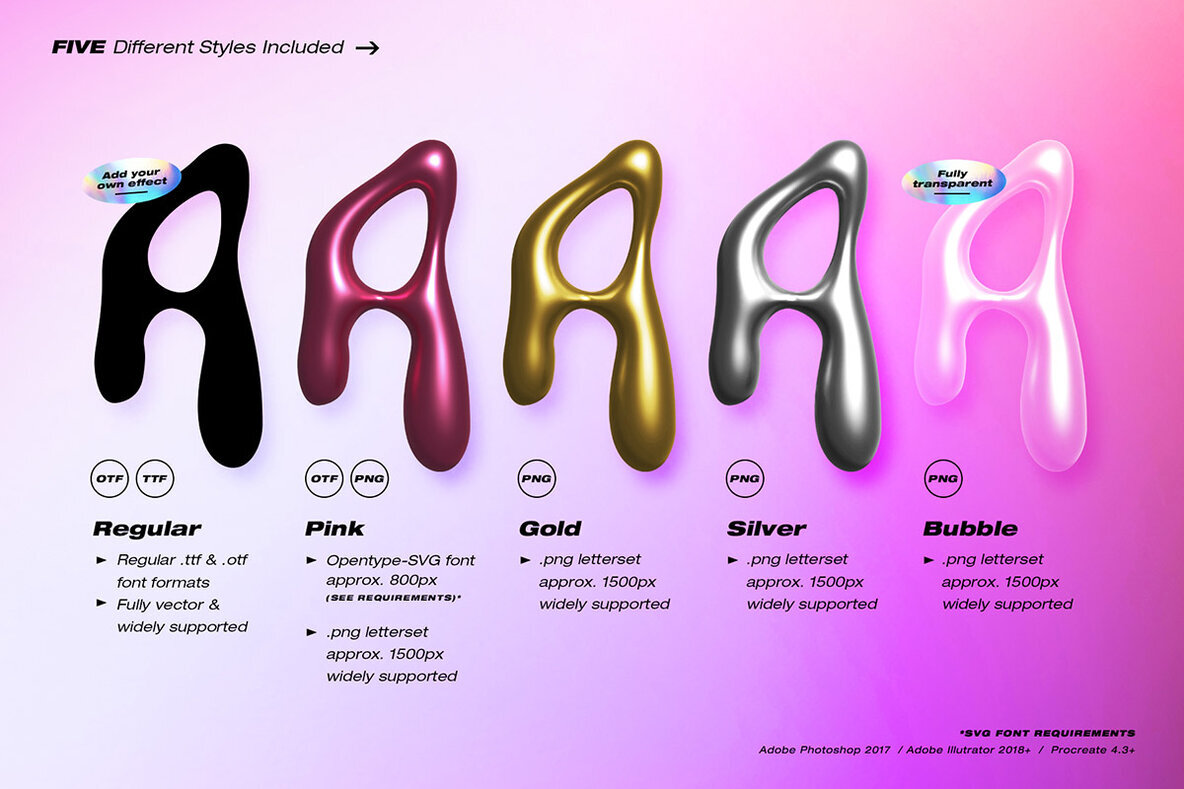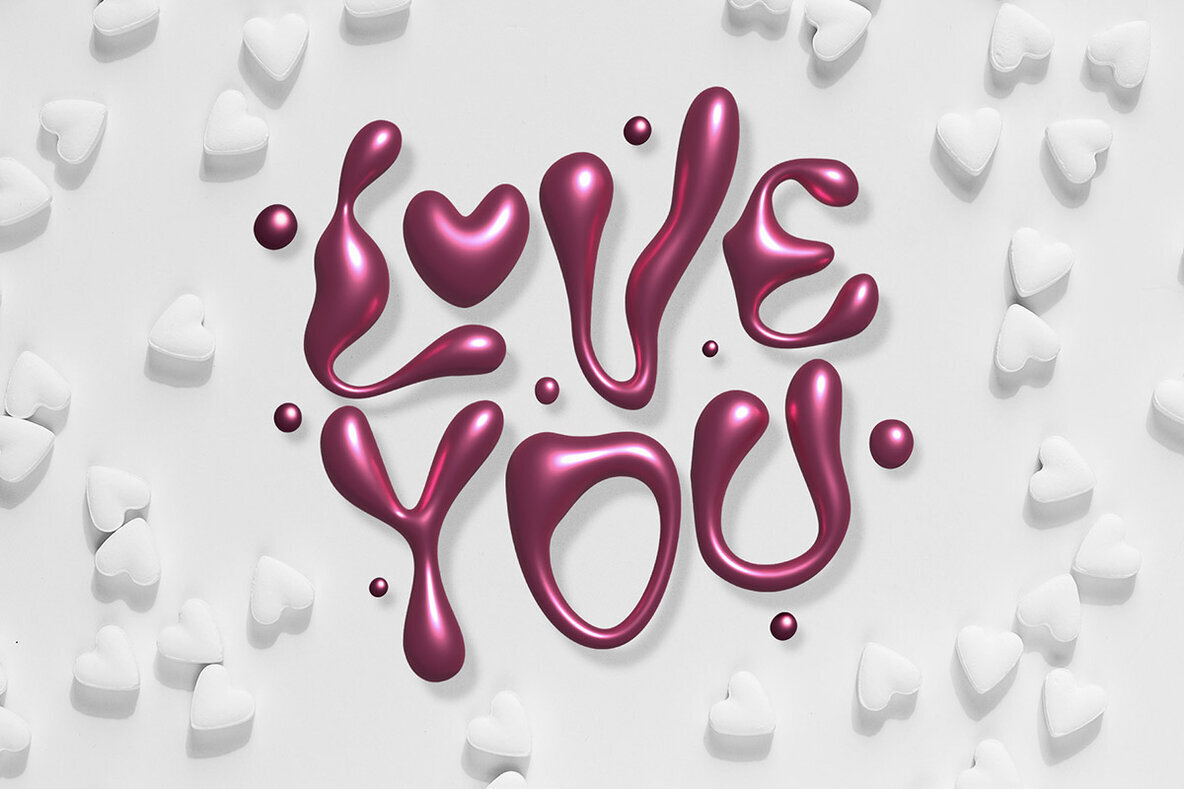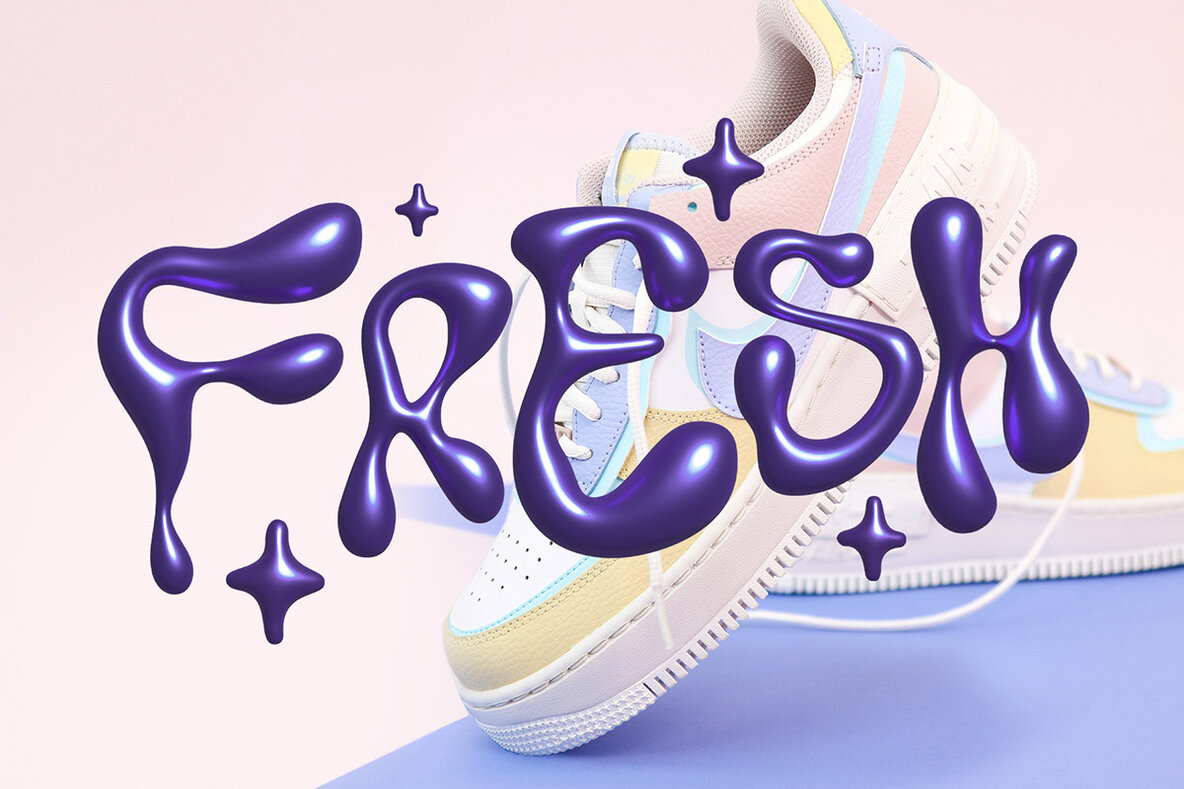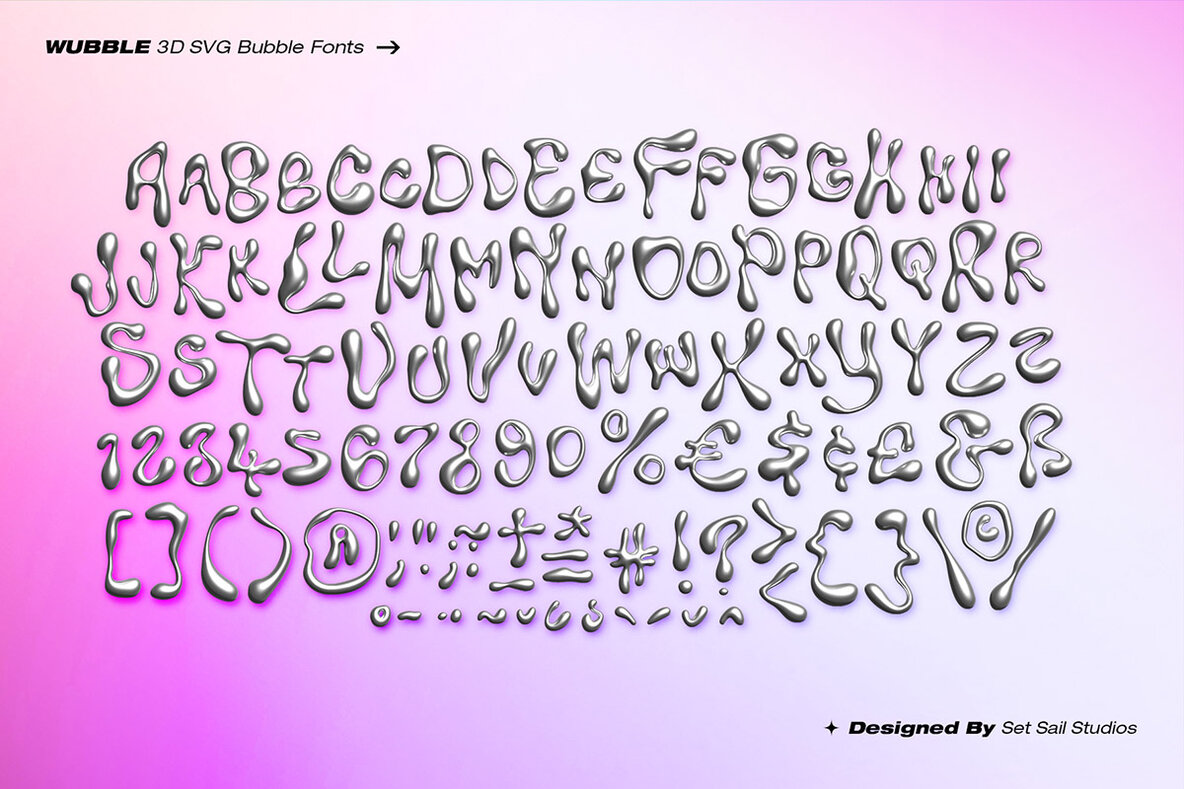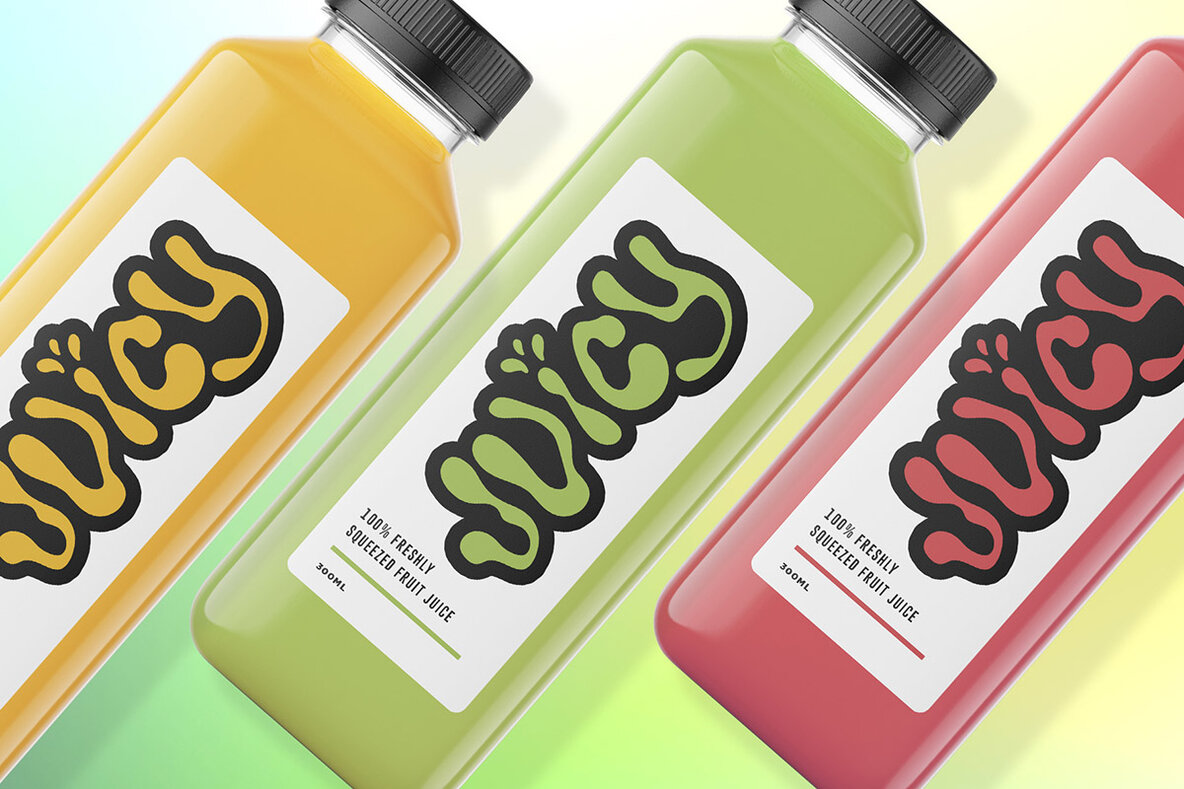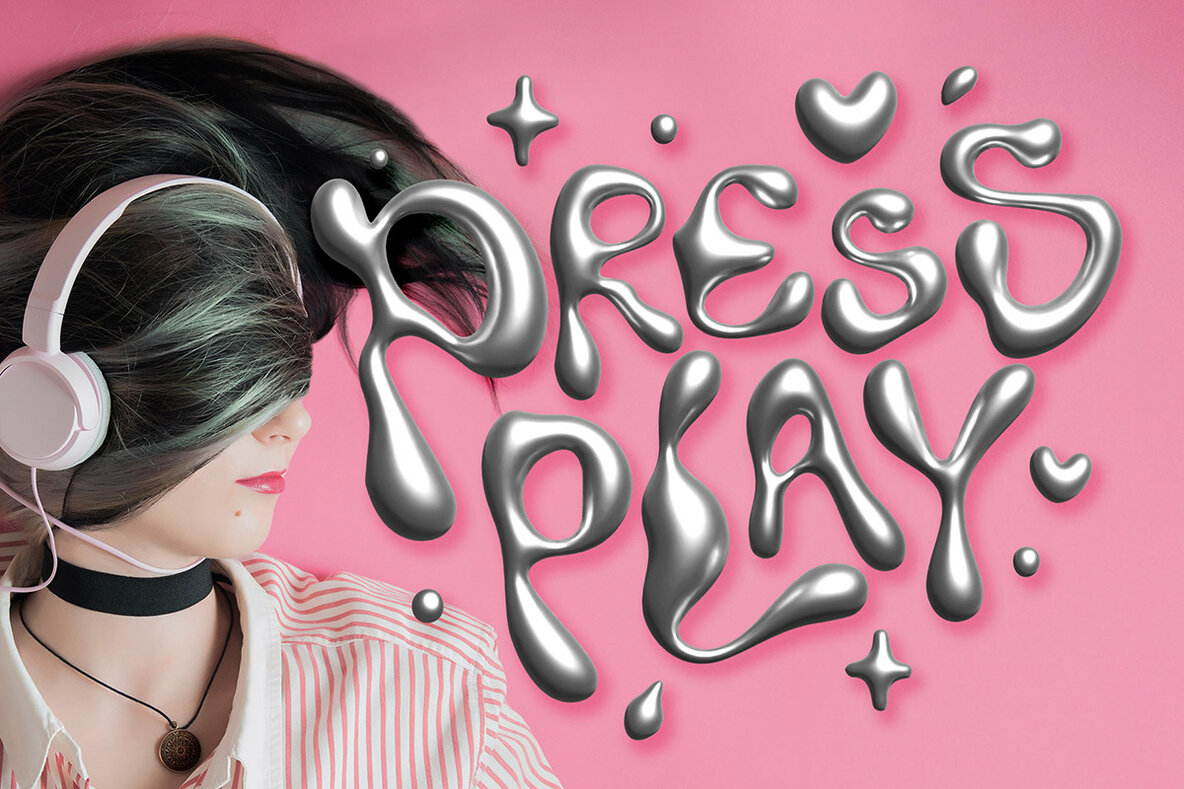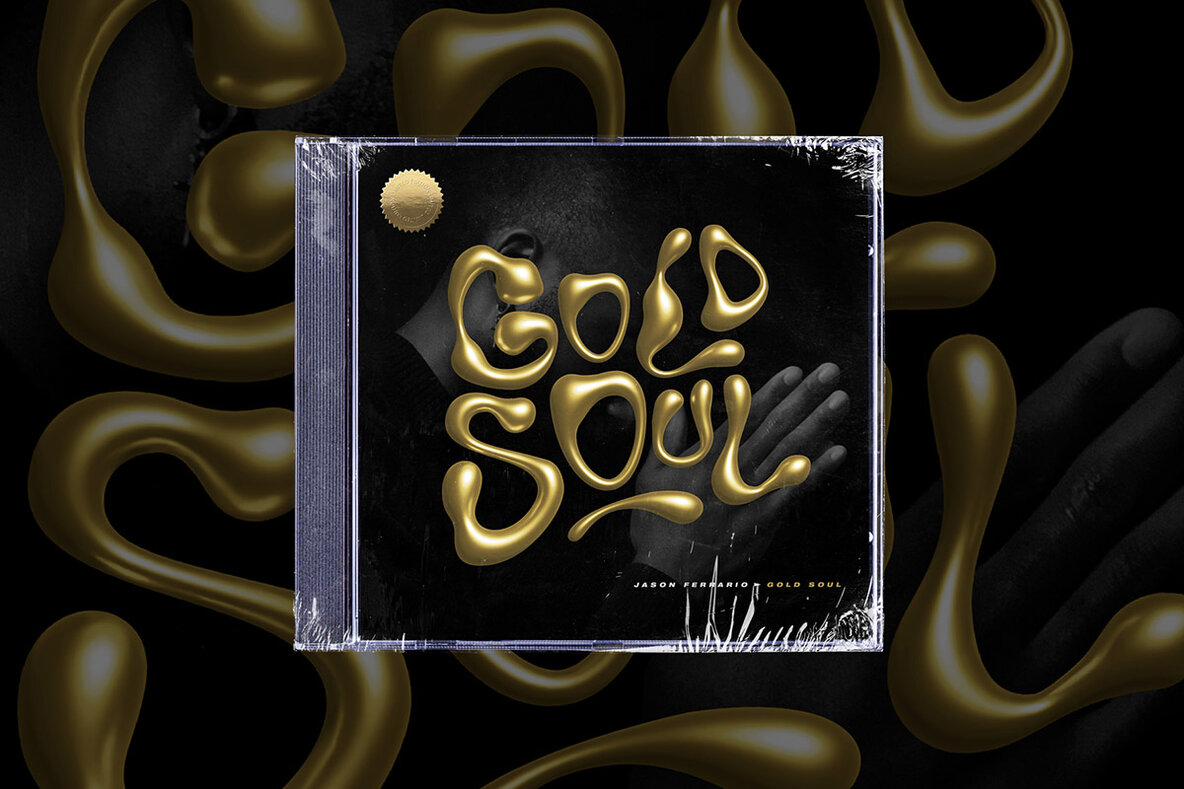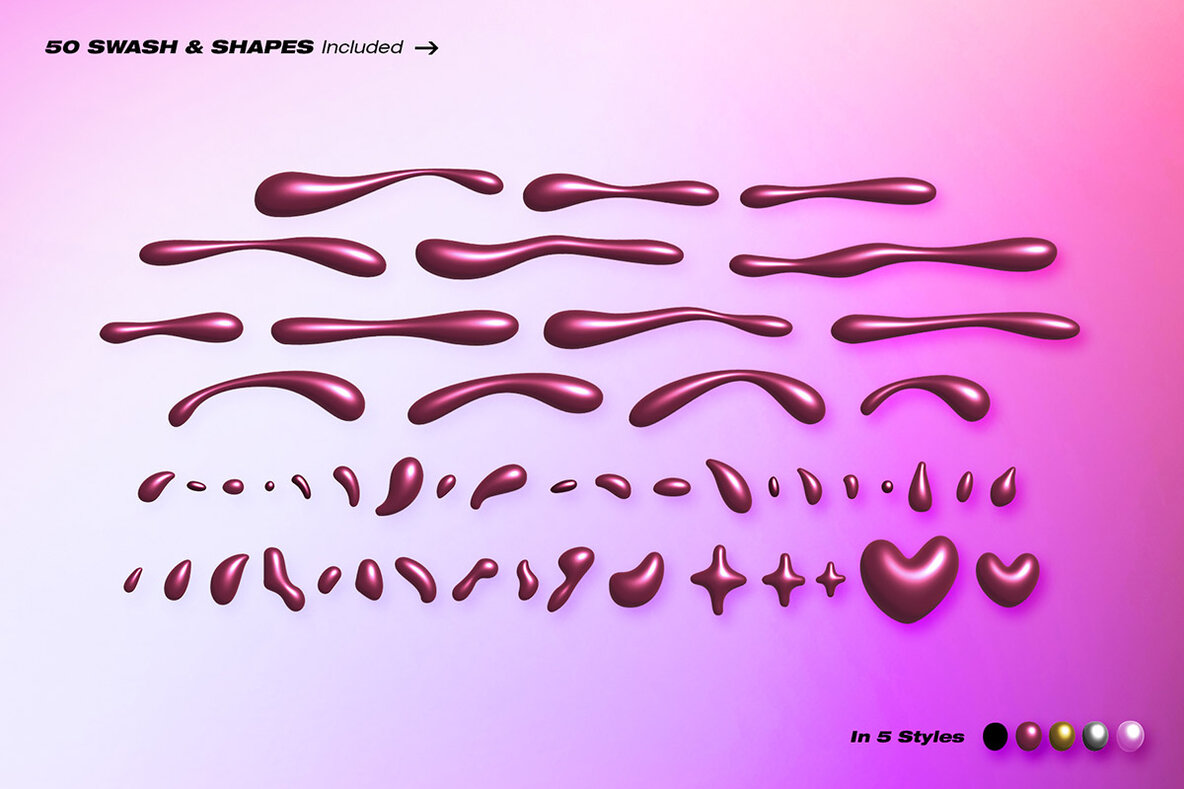
Dig out your Nokia and Tamagotchi beacuse I’m dragging some Y2K influenced bubble-typography into the present day! This irresistible 3D type set is provided as both a type-able font and a .png letterset, in 5 different pre-made styles. Oh, and yeah, I actually did call it Wubble .
Wubble Consists of a full set of upper and lowercase bubble characters, including numerals, punctuation, and multilingual support. It also includes a set of 50 swashes and shapes to compliment your bubble text.